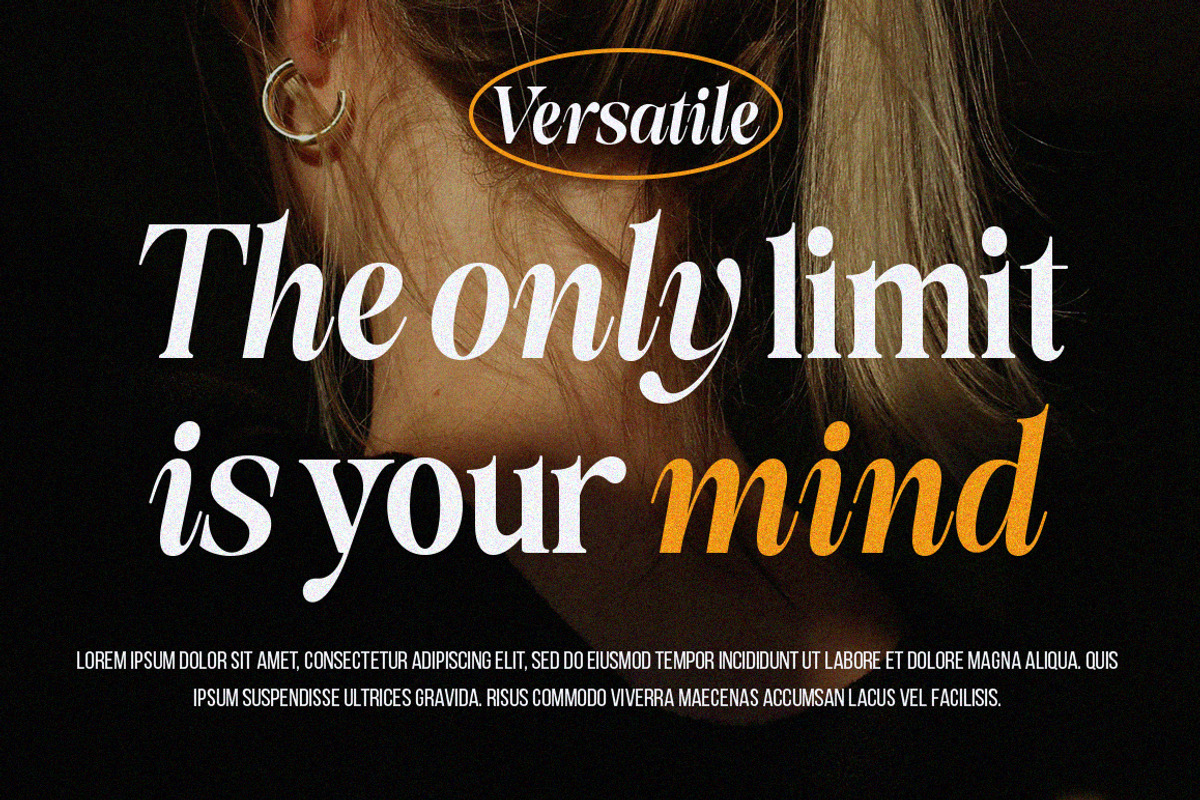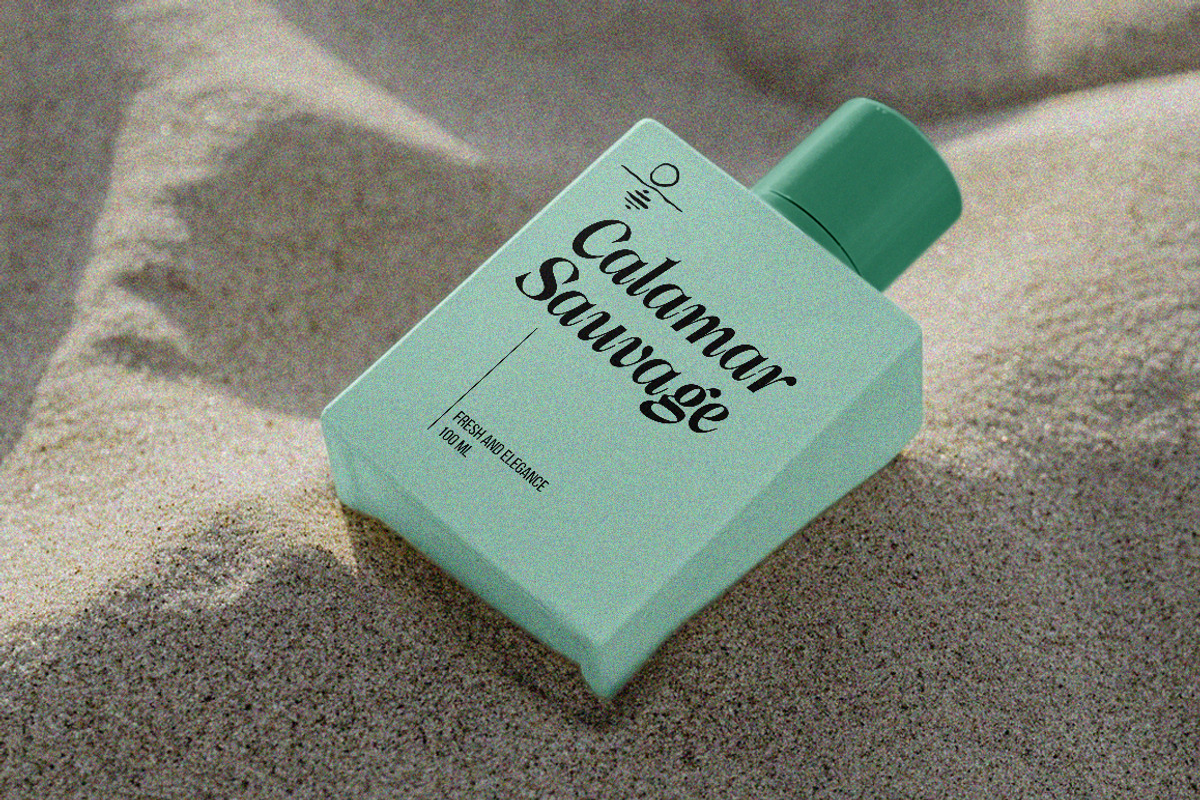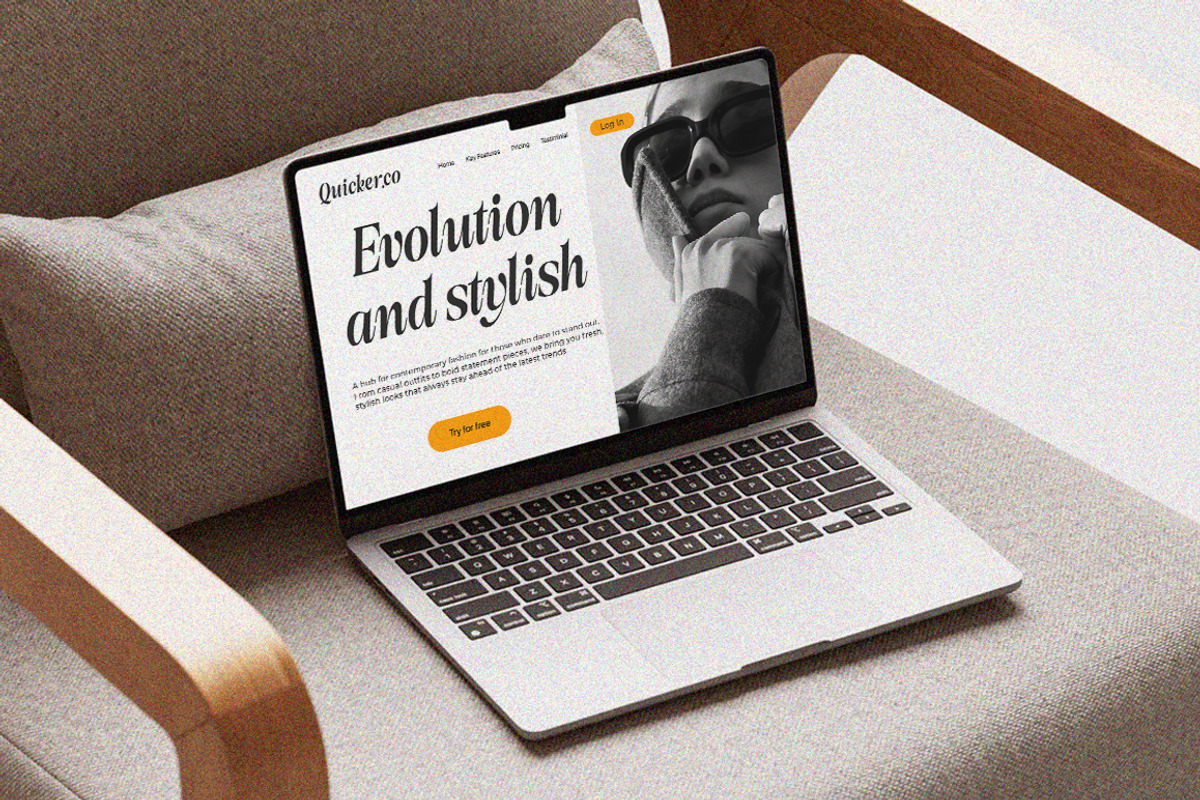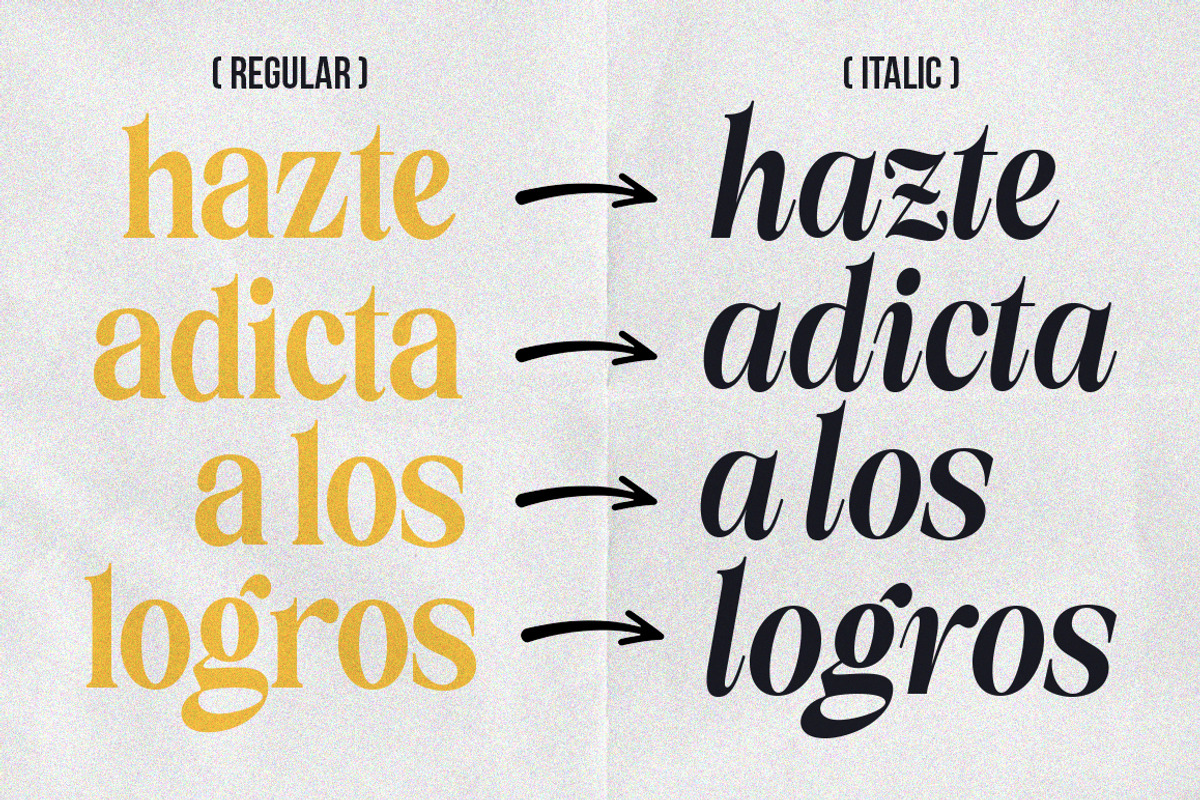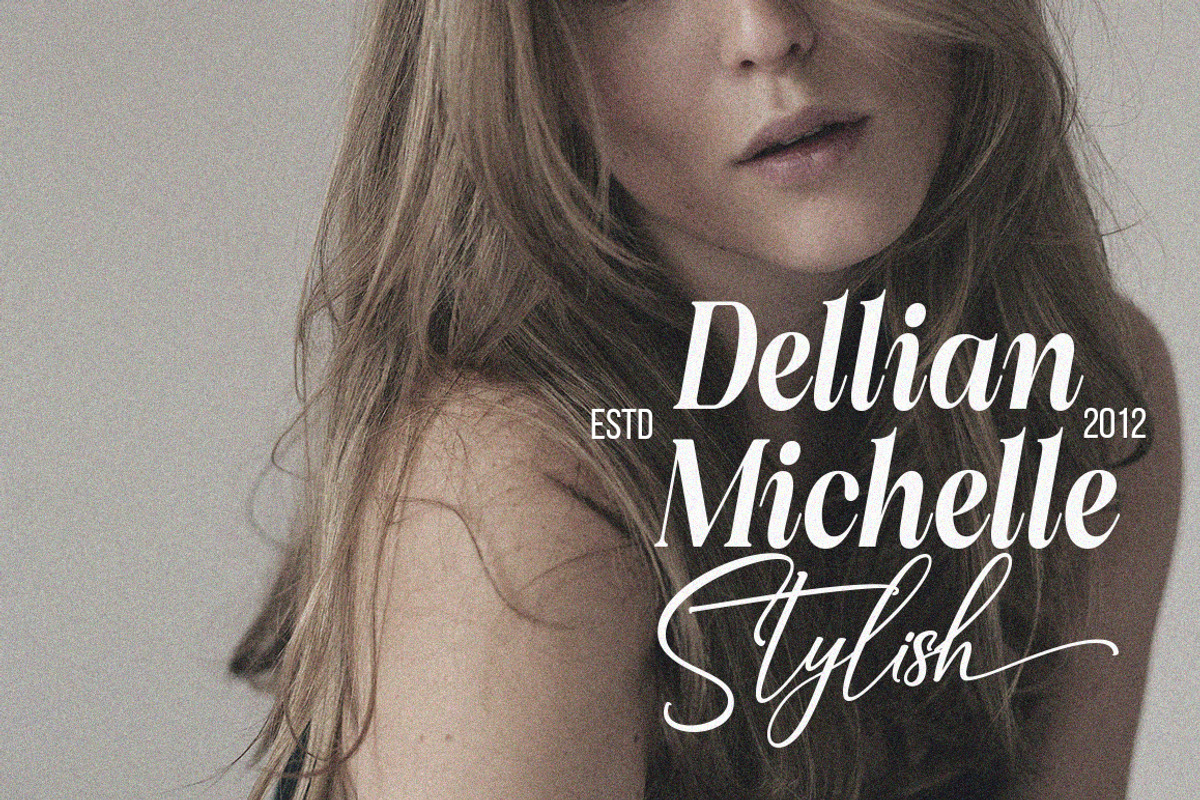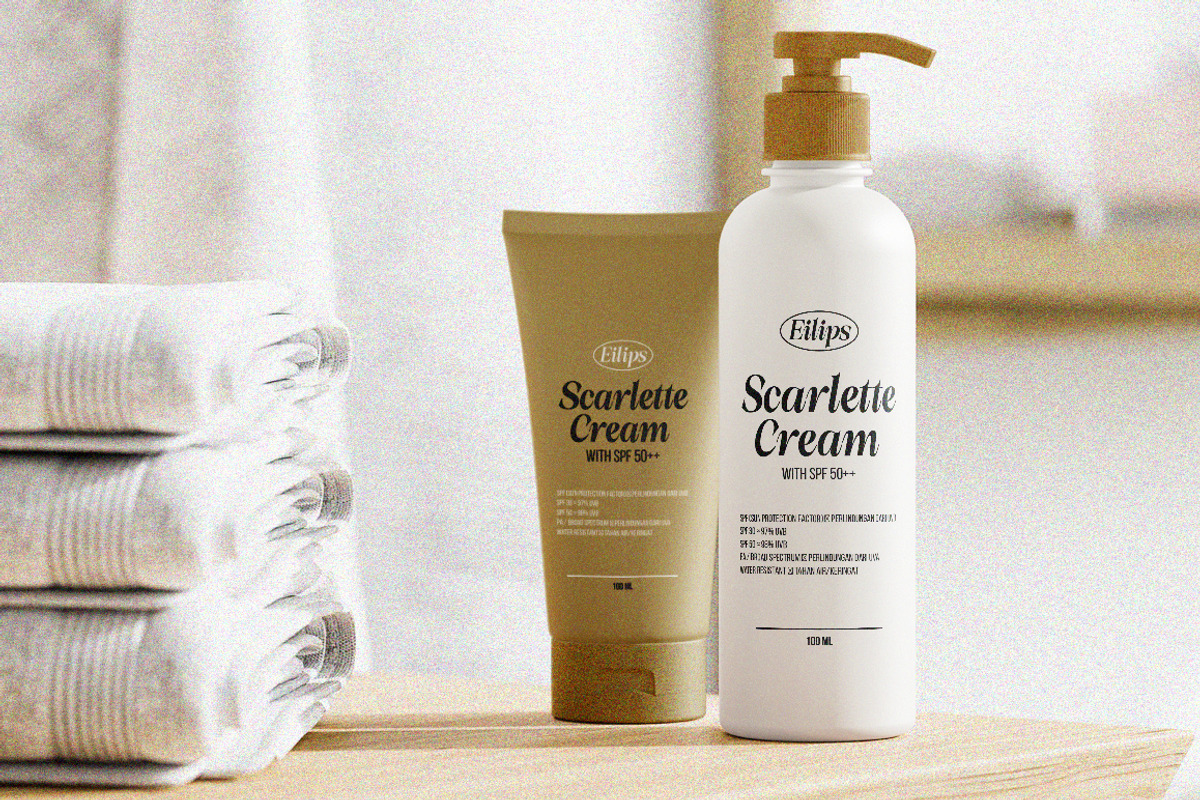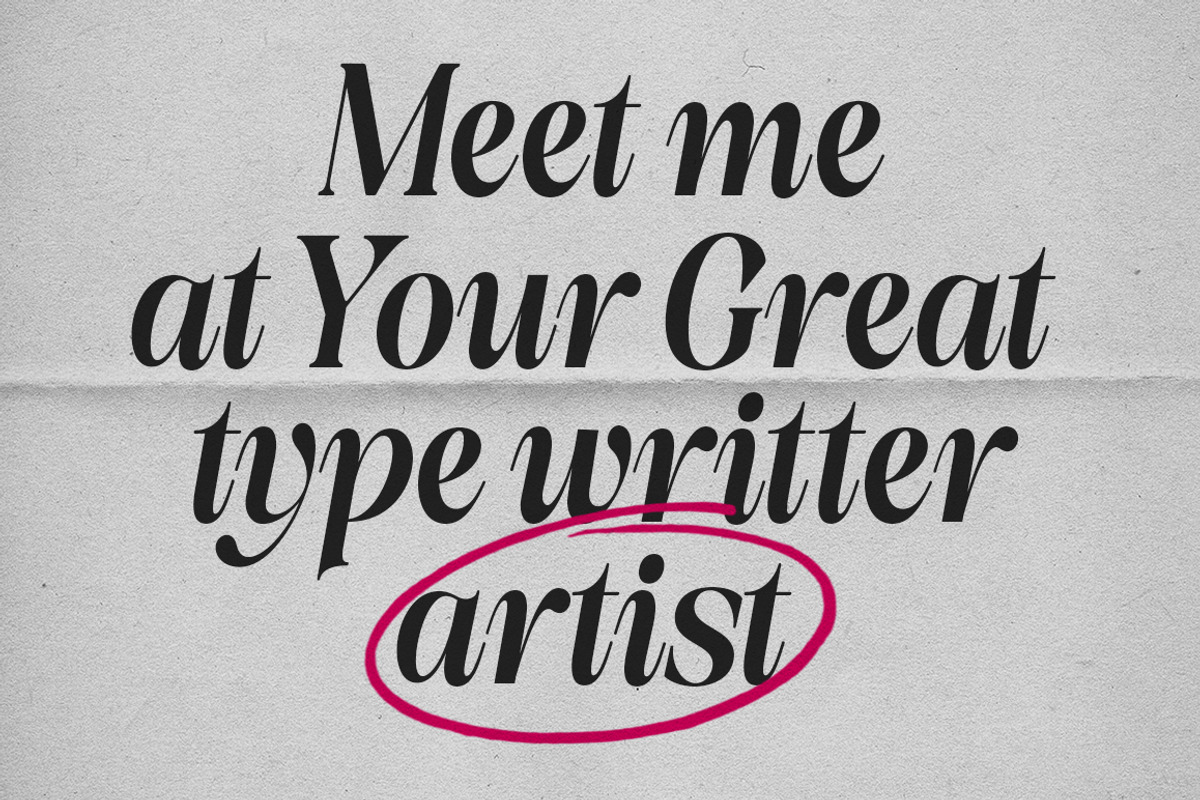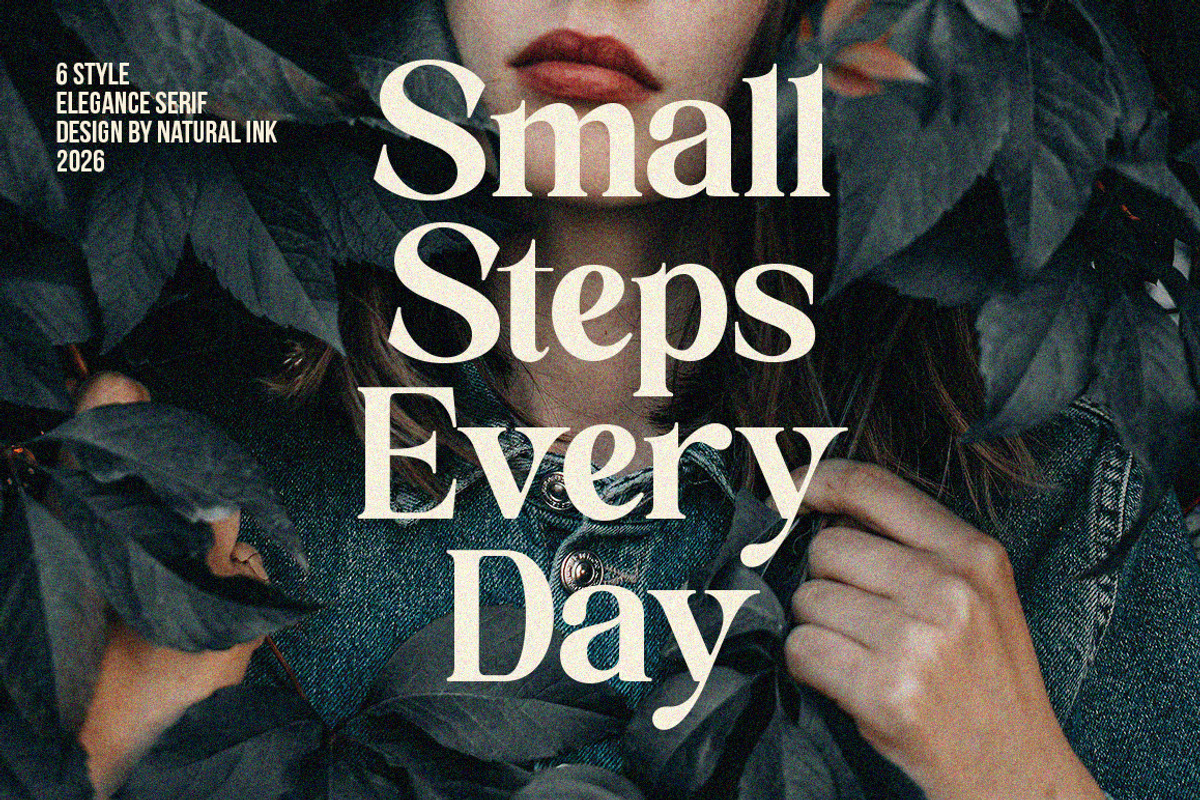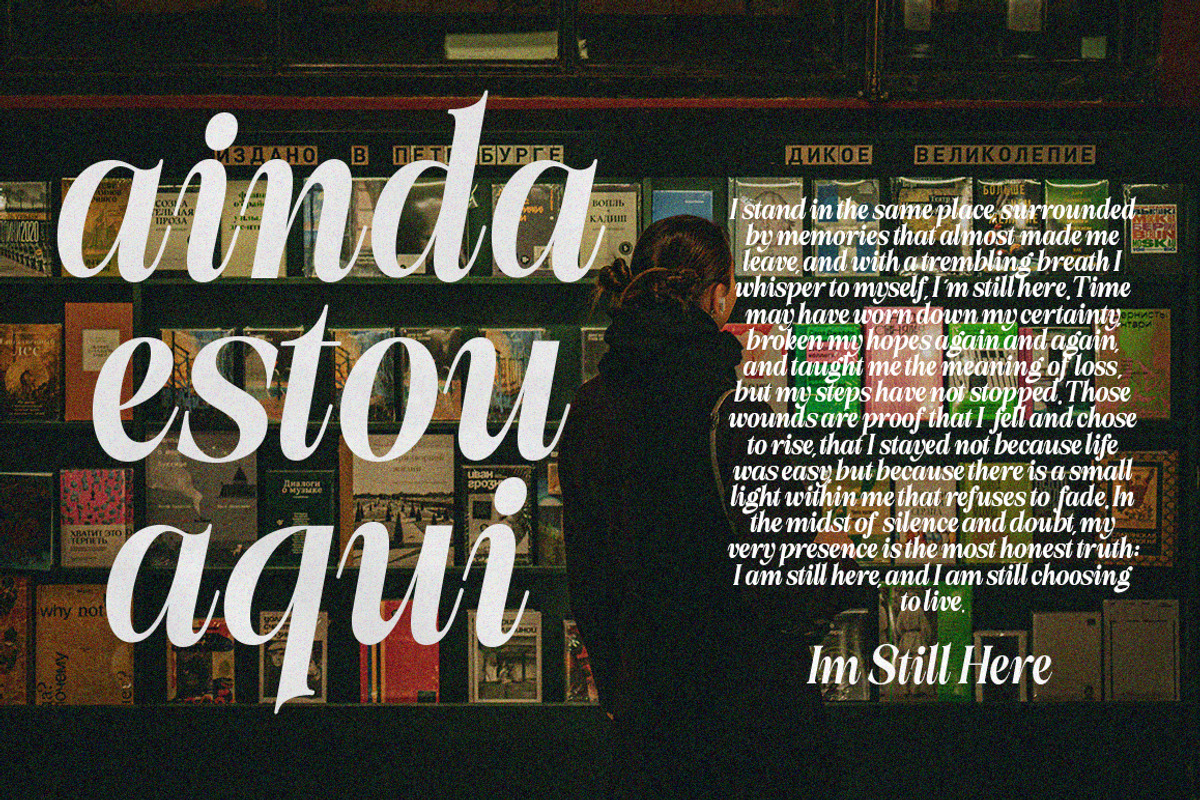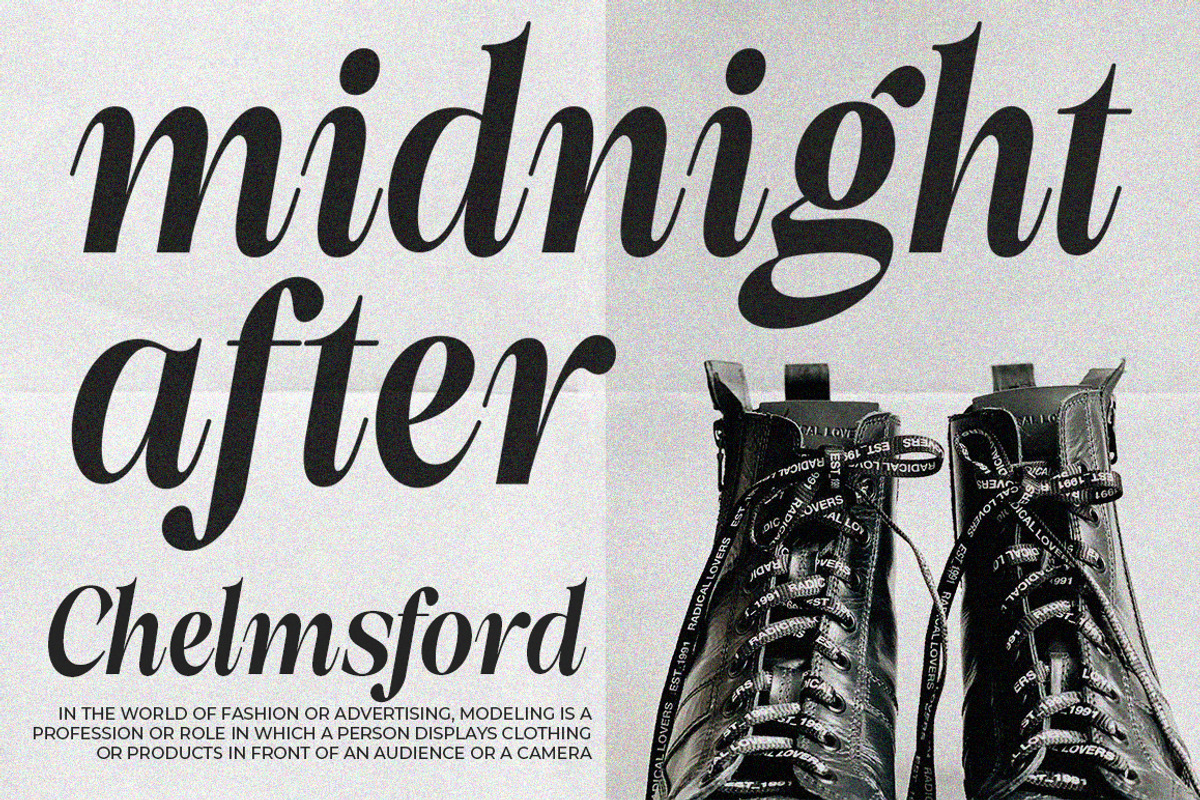
Milver Light Walking | 7 Font
This serif font is designed to bring together classic elegance and a relaxed modern feel within a single, harmonious type family. Its refined serif details and well-balanced letter proportions create a sense of elegance and sophistication, while fluid letter rhythms and soft, unrigid details make it feel friendly, casual, and easy to use across various design contexts.
With a complete range of widths and slanted styles, this font offers high flexibility for building dynamic visual hierarchies—from sophisticated editorial layouts to modern, approachable branding. Its consistency across both print and digital media makes it an ideal choice for designers who value aesthetics as much as functionality.
Italic Condensed Slim and dynamic, delivering an elegant feel with an expressive touch. Ideal for captions, highlights, or headlines in limited spaces.
Condensed Strong and efficient, perfect for headlines or layouts that require compactness without sacrificing readability.
Regular Balanced and neutral, serving as the core foundation for body text with optimal reading comfort.
Italic Fluid and classic, providing a soft yet relaxed accent for text emphasis or narrative elements.
Italic Expanded Wide and expressive, emphasizing an artistic sense of elegance. Perfect for editorial titles or visual statements.
Expanded Open and authoritative, allowing each letter to breathe for a modern and refined appearance.
Slant Lightly angled with a contemporary character, offering a more casual and dynamic alternative to traditional italics.
With these 7 complementary fonts, you’ll have endless creative freedom to craft designs that are both elegant and personal. A perfect choice for designers, entrepreneurs, and creatives who want to add a professional yet warm touch to their work.